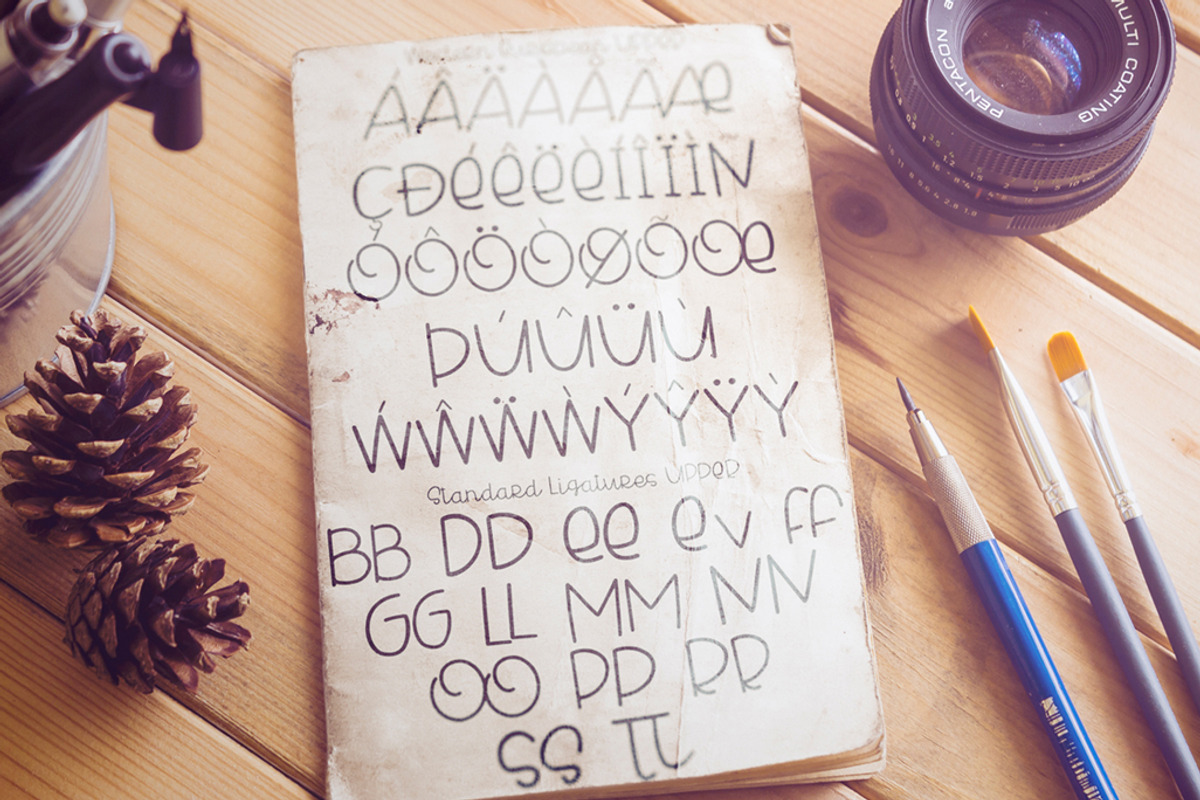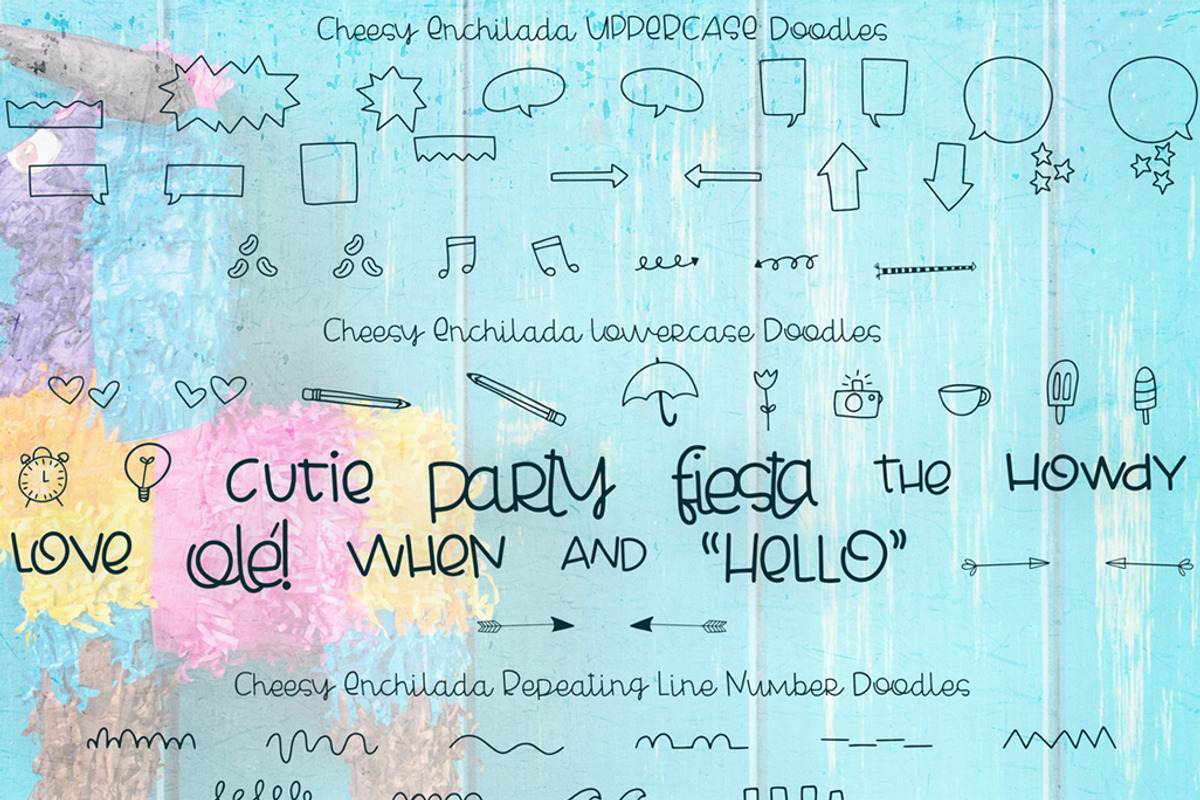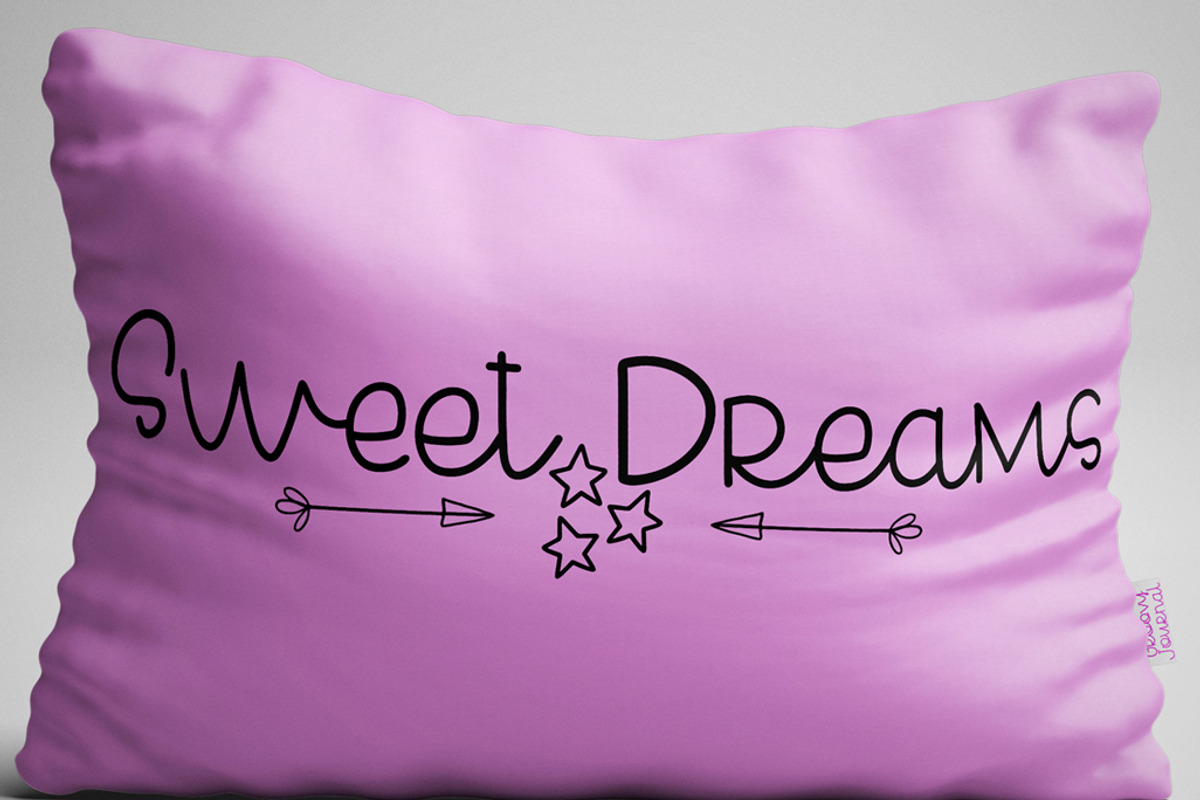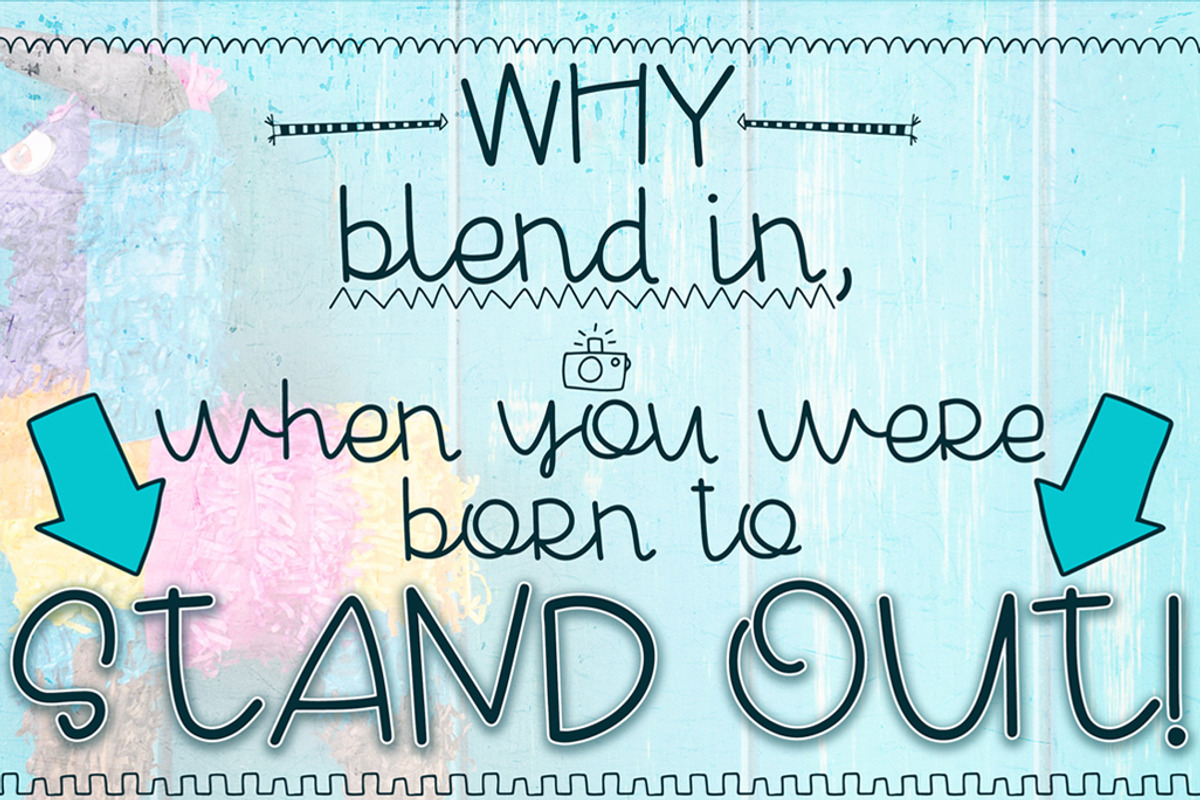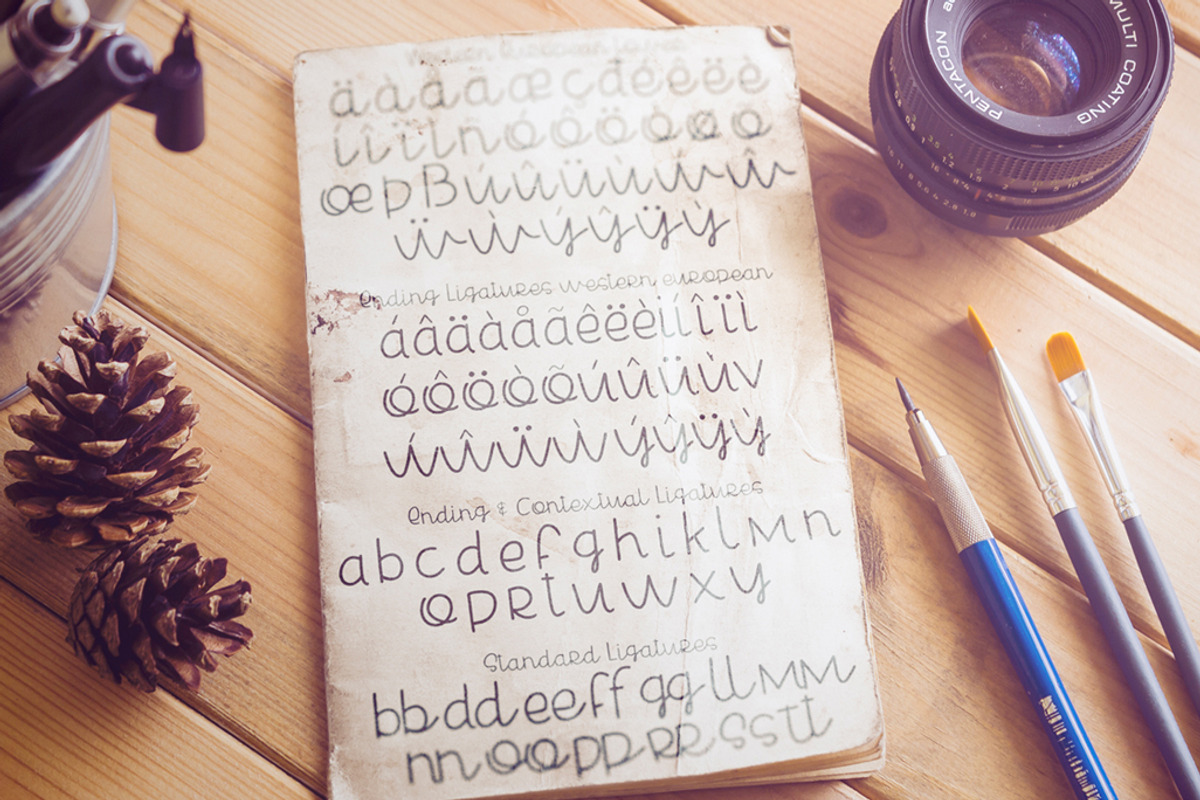
Cheesy Enchilada Font Duo
Give your designs a hand-lettered dose of personality with the fun font duo, Cheesy Enchilada!
Perfect for birthday and greeting cards, branding, social media, packaging, magazine layouts, prints and more!
A full Print/script font with custom ligatures for more unique, hand drawn look. Includes numbers, and punctuation. (ending ligatures for some Western European glyphs as well see preview image)
A Doodle font with 52 hand drawn doodles (upper and lowercase), and 10 (numbers 0-9) repeating line patterns.
Multilingual support is included for Western European languages (Please test your characters in the font previewer below before purchase.)
- Cheesy Enchilada includes 2 fonts: Complete Alpha and Doodles, created to pair perfectly together to bring your designs to life.
- What's included: A full Print/script font with custom ligatures for more unique, hand drawn look.
- Includes numbers, and punctuation.
- Multilingual support is included for Western European languages (Please test your characters in the font previewer below before purchase.) O
- Cheesy Enchilada includes 2 fonts: Complete Alpha and Doodles, created to pair perfectly together to bring your designs to life.
- What's included: A full Print/script font with custom ligatures for more unique, hand drawn look.
- Includes numbers, and punctuation.
- Multilingual support is included for Western European languages (Please test your characters in the font previewer below before purchase.) O
- (ending ligatures for some Western European glyphs as well see preview image) A Doodle font with 52 hand drawn doodles (upper and lowercase)